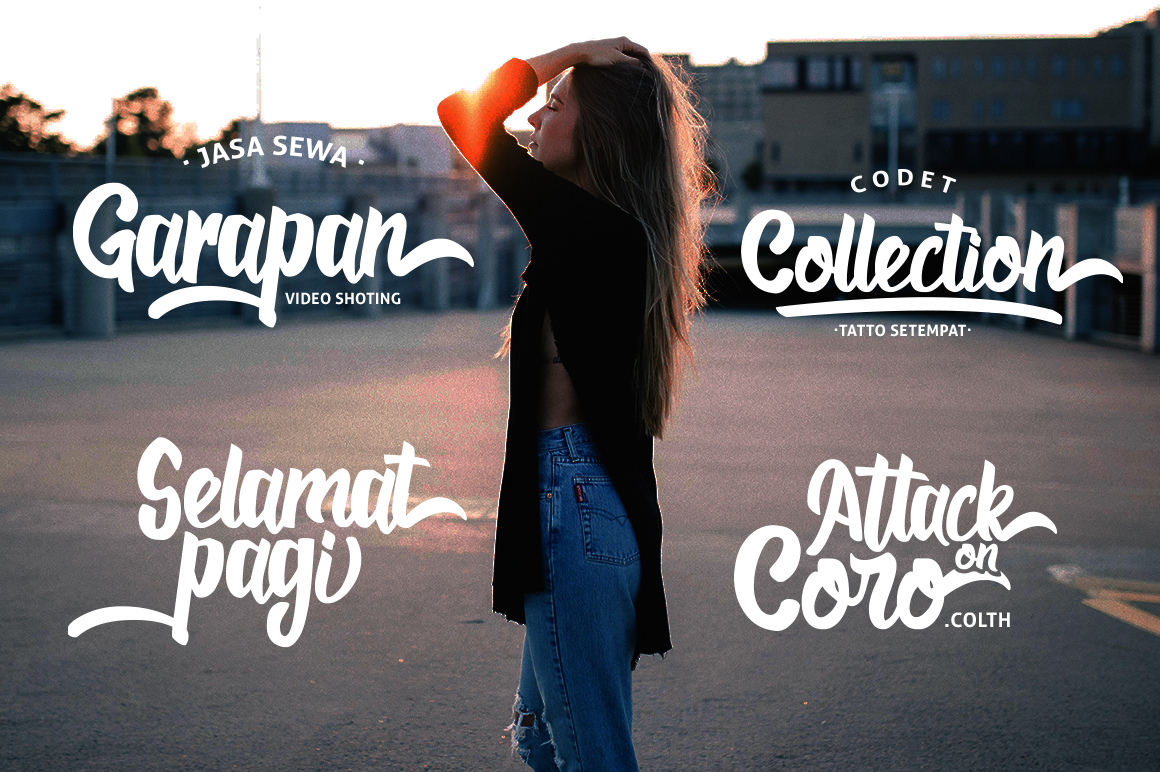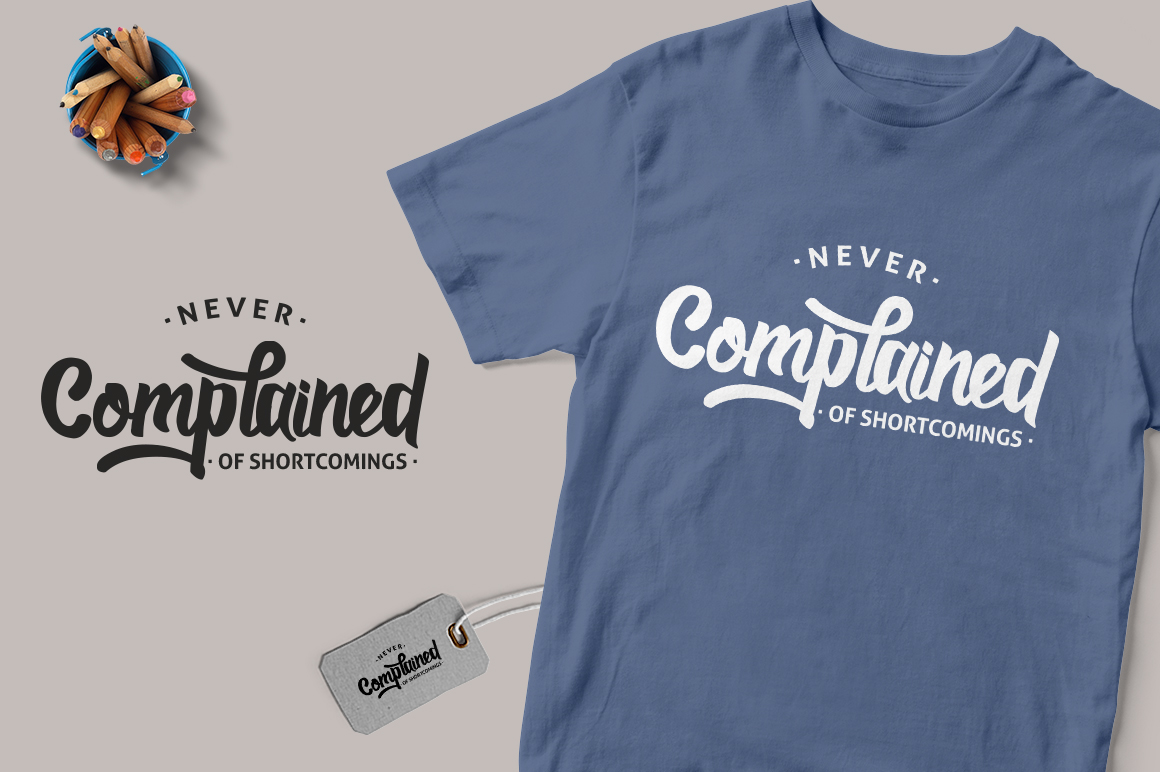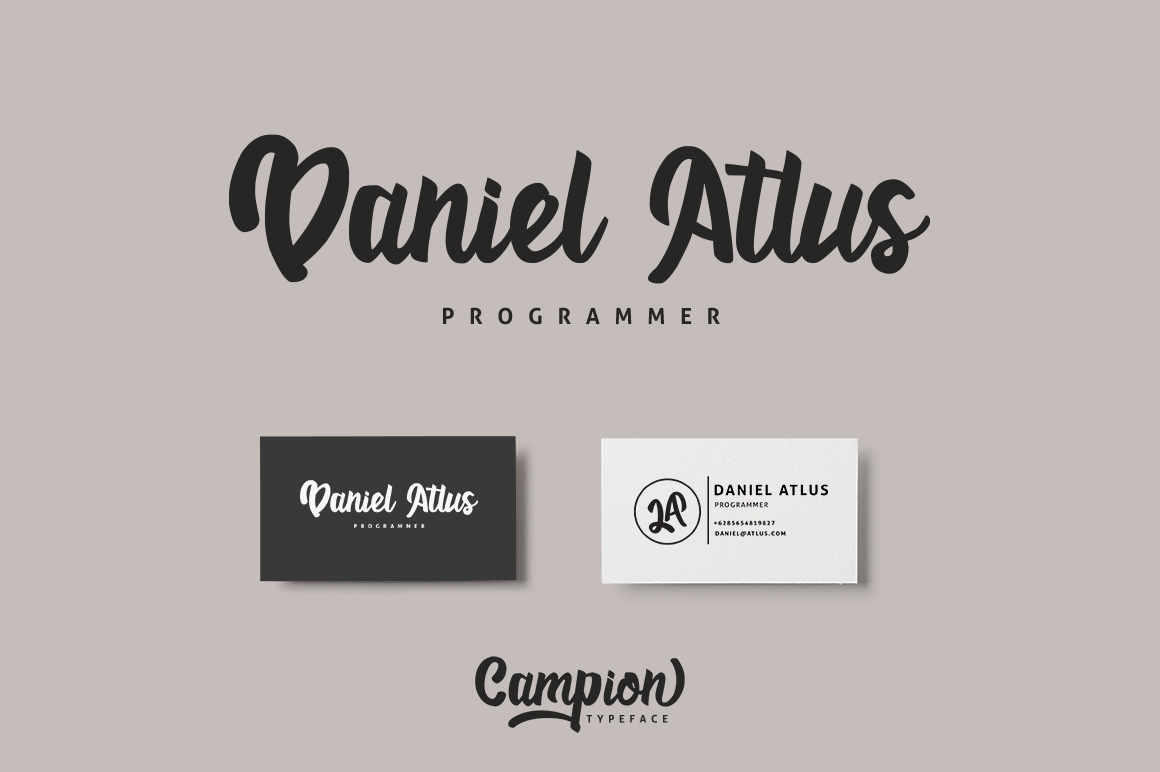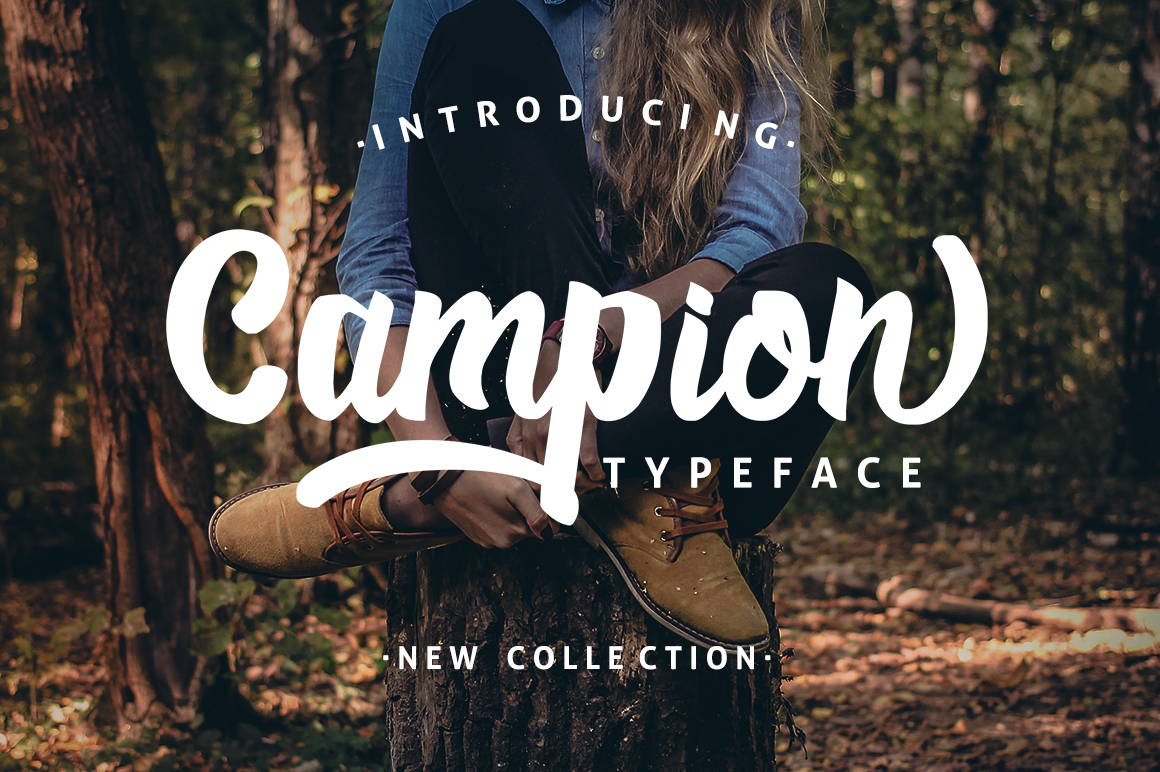
Campio Typeface
Campion Typeface is a stylish script font . Very cool for branding, poster, logo, and any other artworks. Using Campion will be better if we play the stylistics alternate and combining it with swashes packs.
| Classification: | Brush Fonts, Handwritten Fonts, Script Fonts |